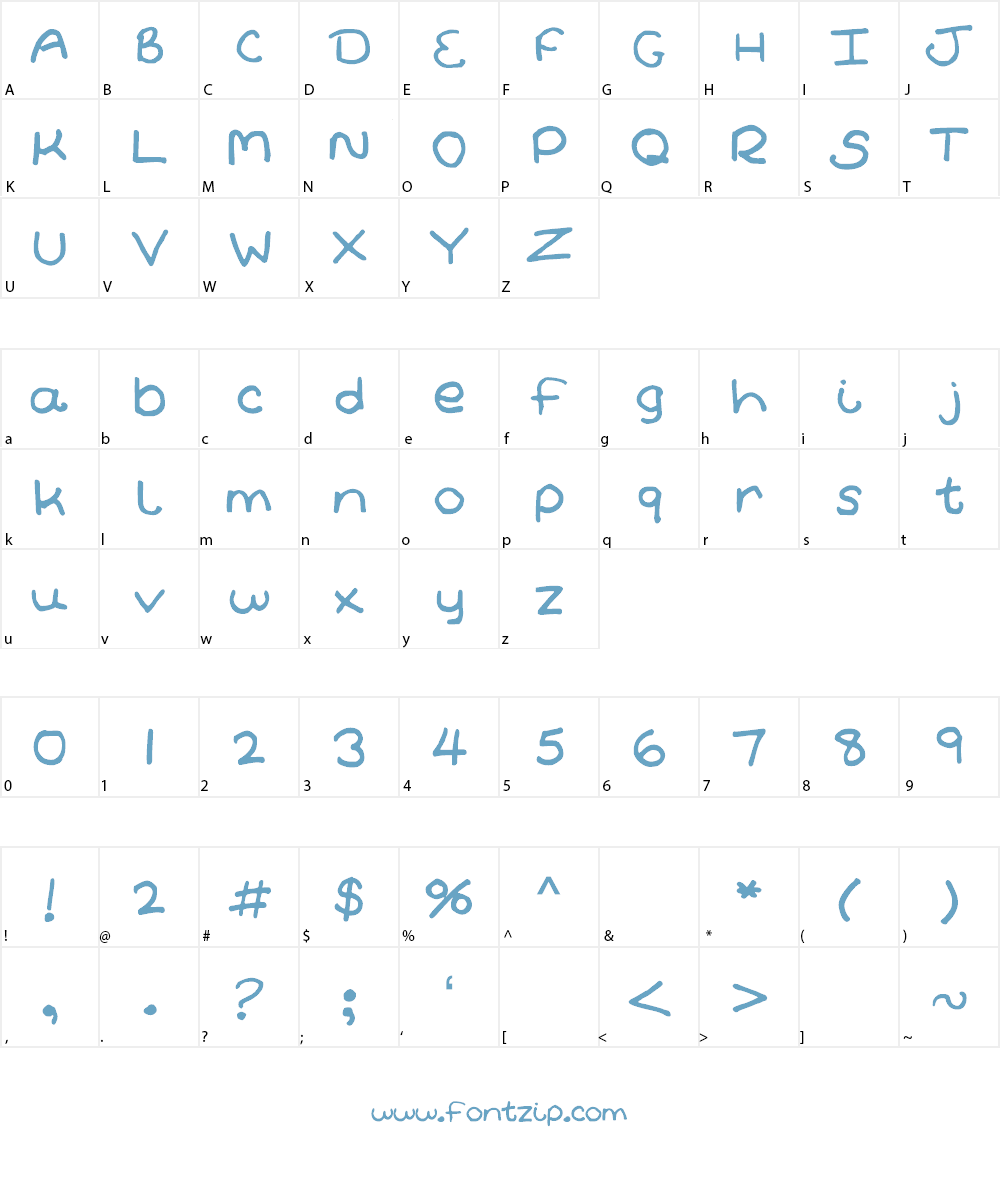
A cute font inspired by, well, bubblegum! :) It's hand-drawn and I'm pretty proud of how it turned out. The font is large and fat - just like a bubblegum bubble! - and I hope you like it, because I had a lot of fun creating it!